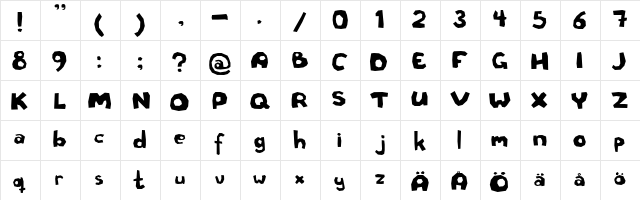
Rough cut Regular
Design Context for Rough cut Typeface
Rough cut embraces imperfection — its rough, textured character adds raw authenticity to designs that want to feel lived-in and unconventional.
A strong fit for alternative music projects, graffiti-adjacent design, and anything that deliberately resists polish.
Pro Tip: Use Rough cut at larger sizes where the texture and irregularity of each letterform can be clearly seen — it loses its character at small sizes.